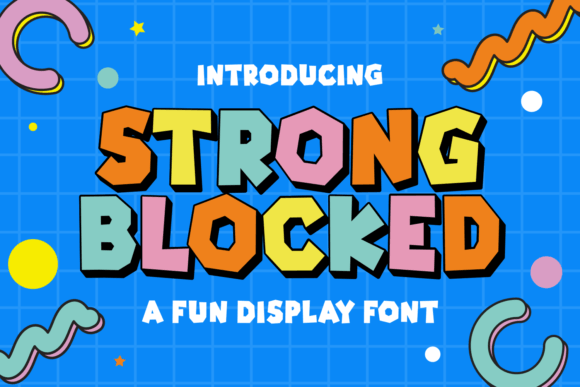
Step into the realm of captivating creativity with Strong Blocked, a display font that radiates boldness and playfulness. This extraordinary font, meticulously crafted by Situjuh, is a vibrant explosion of retro charm and contemporary flair, ready to ignite your designs with an unforgettable spark.
Strong Blocked is not just a font; it's an artistic revolution. Its thick, solid strokes command attention, while its slightly retro vibe adds a touch of nostalgia that resonates with audiences. Whether you're crafting eye-catching posters, designing vibrant logos, or creating social media content that demands attention, Strong Blocked is your secret weapon.
Imagine your designs adorned with Strong Blocked's playful yet powerful presence. Flyers and brochures come alive with an energy that leaps off the page, captivating audiences with every word. Business cards and letterheads exude confidence and creativity, leaving a lasting impression that sets you apart from the ordinary.
Unleash your inner artist and let Strong Blocked be your muse. Its versatility knows no bounds, allowing you to weave it into any creative project and watch it transform into a masterpiece. Create stunning invitations that evoke a sense of celebration, design T-shirts that make a bold statement, or craft website headers that captivate visitors with their unique charm.
With Strong Blocked, the possibilities are endless. Its user-friendly nature makes it accessible to designers of all skill levels, inviting you to explore your creativity and push the boundaries of visual expression. Whether you're a seasoned pro or just starting your design journey, Strong Blocked is your trusted companion, ready to elevate your work to new heights.